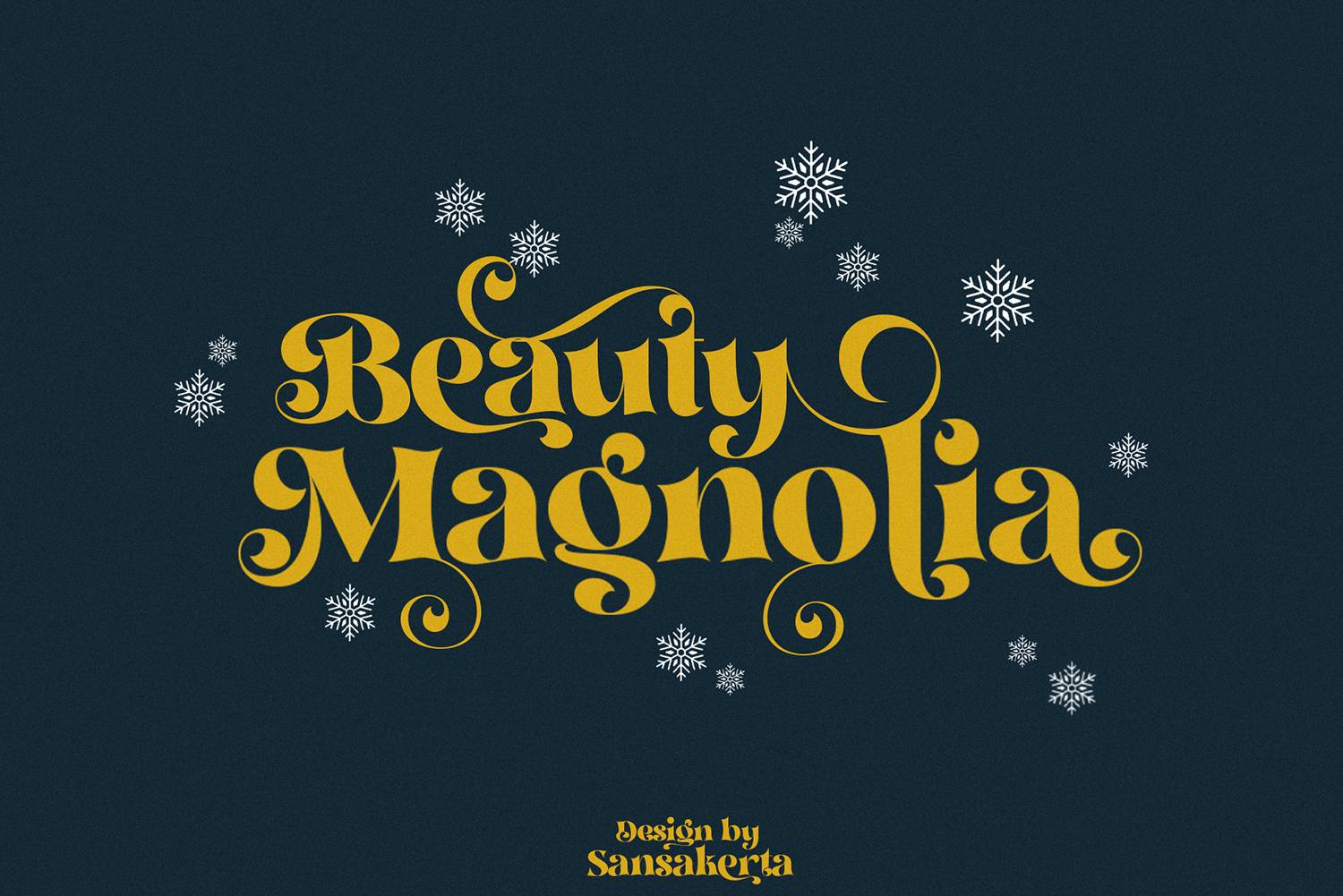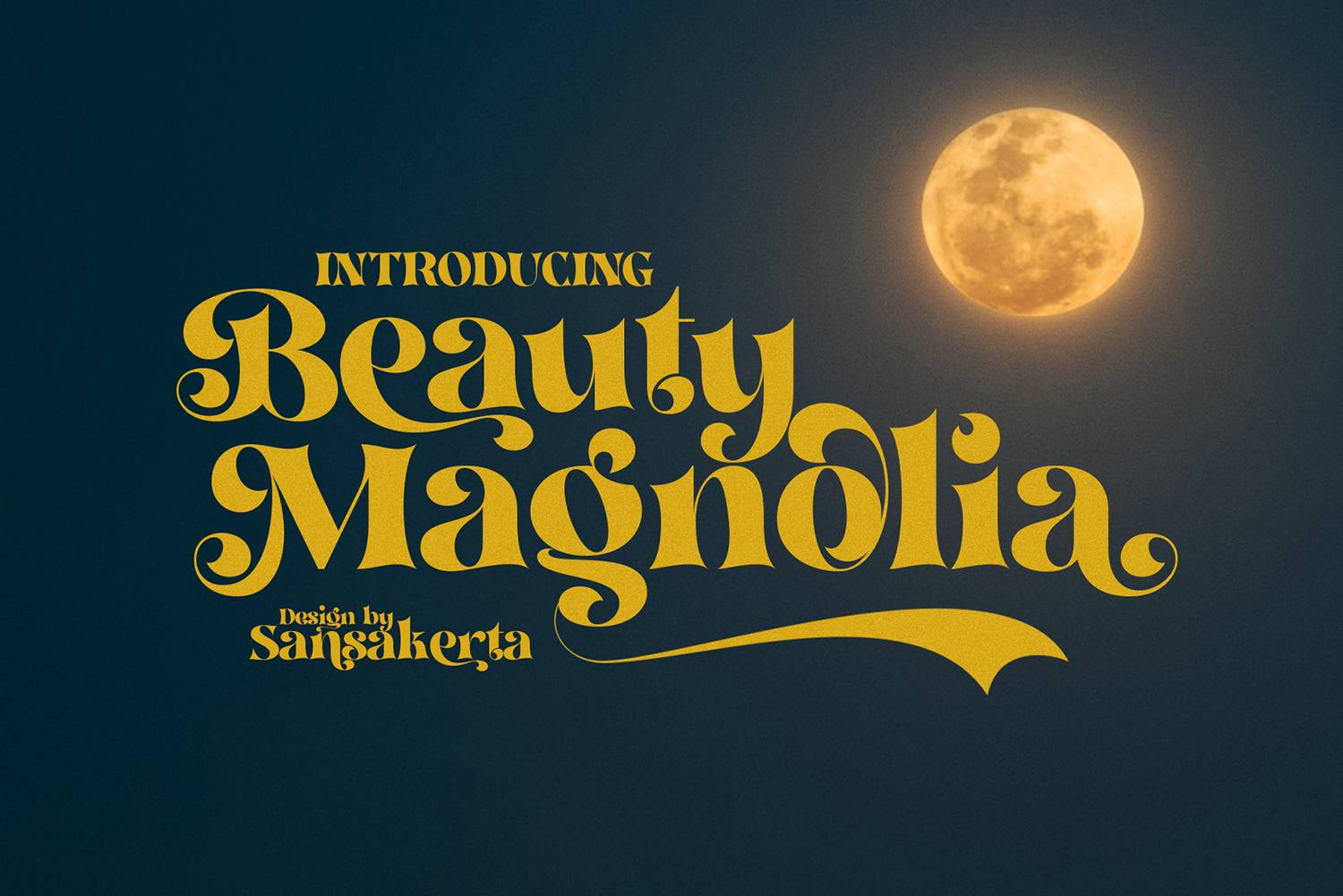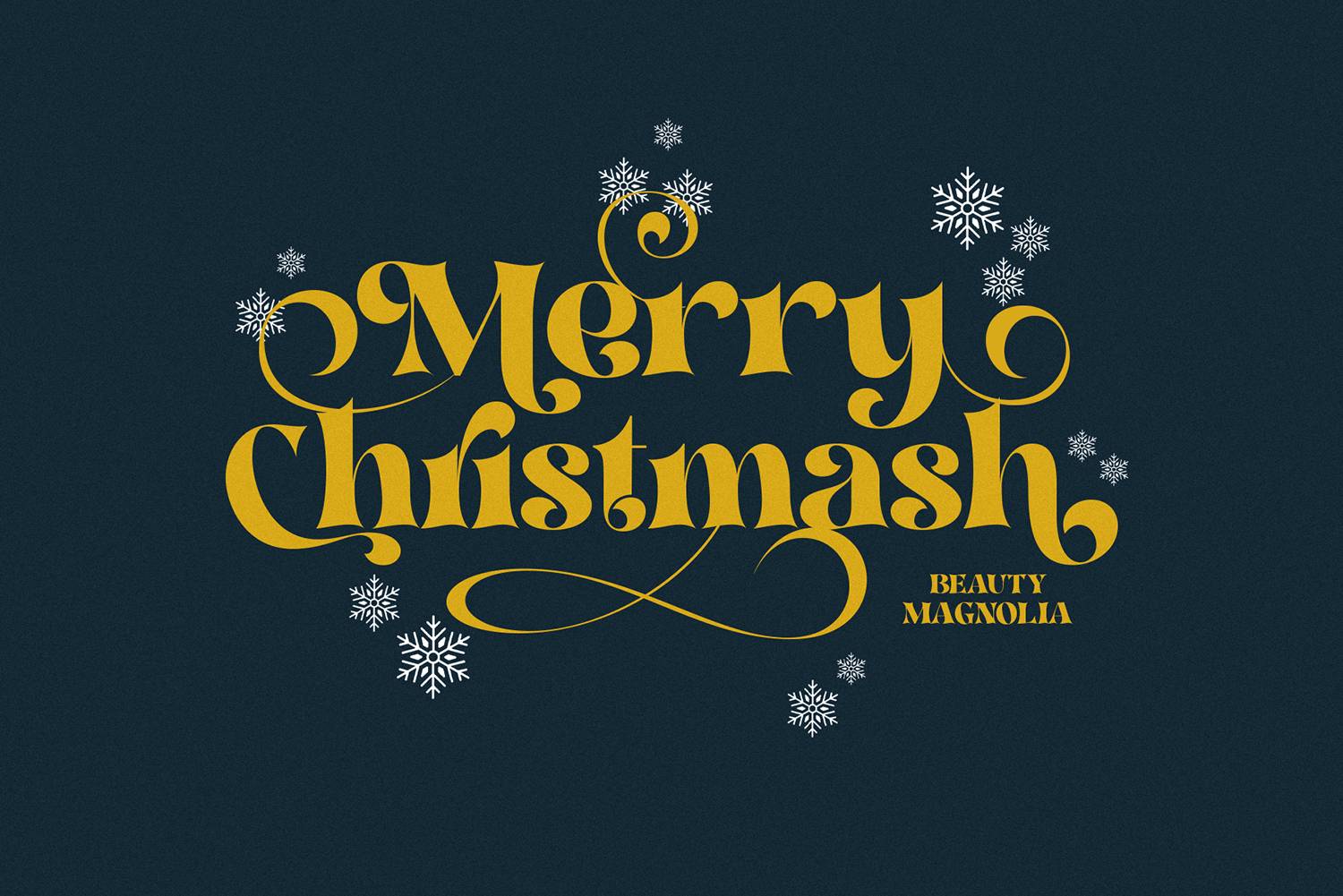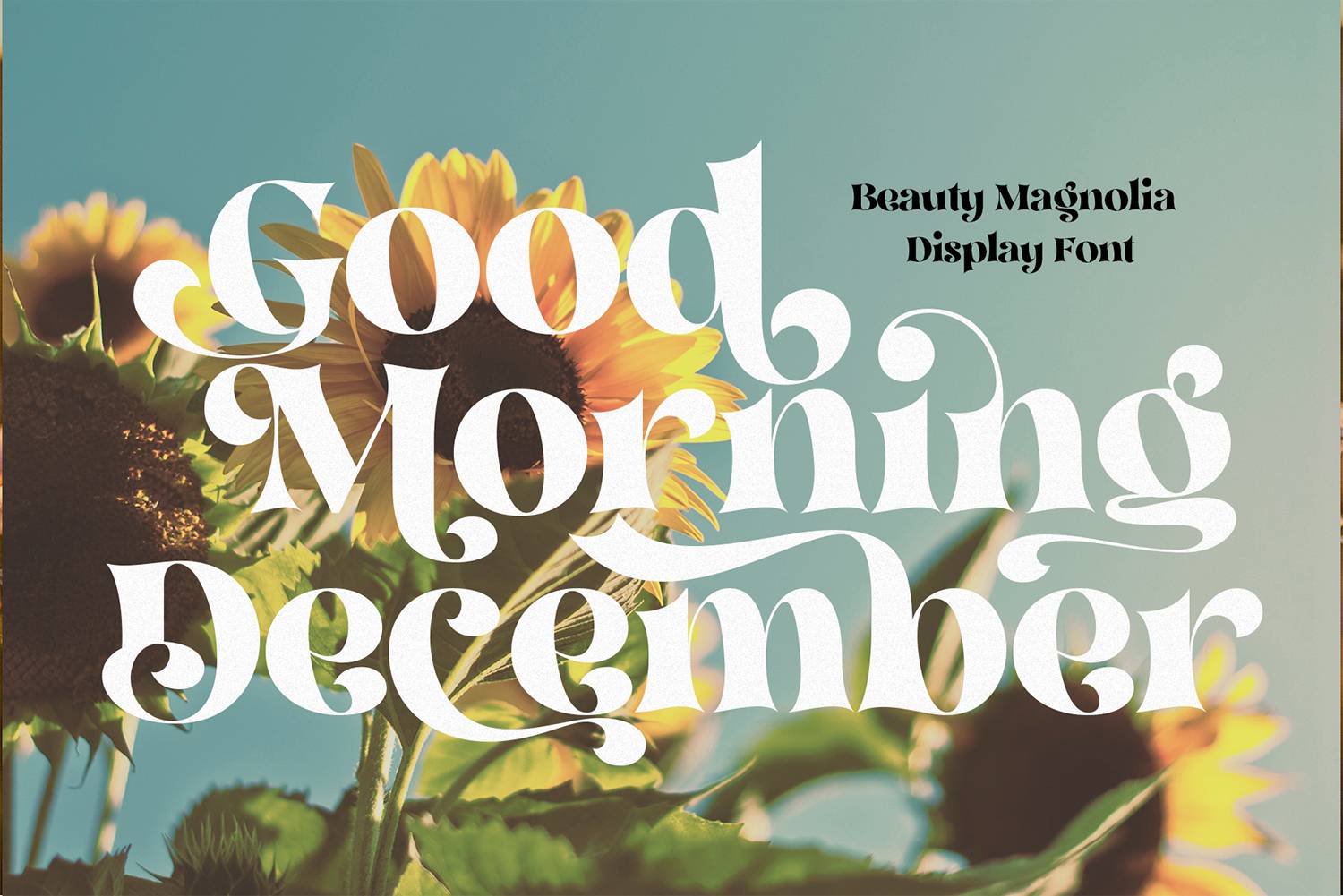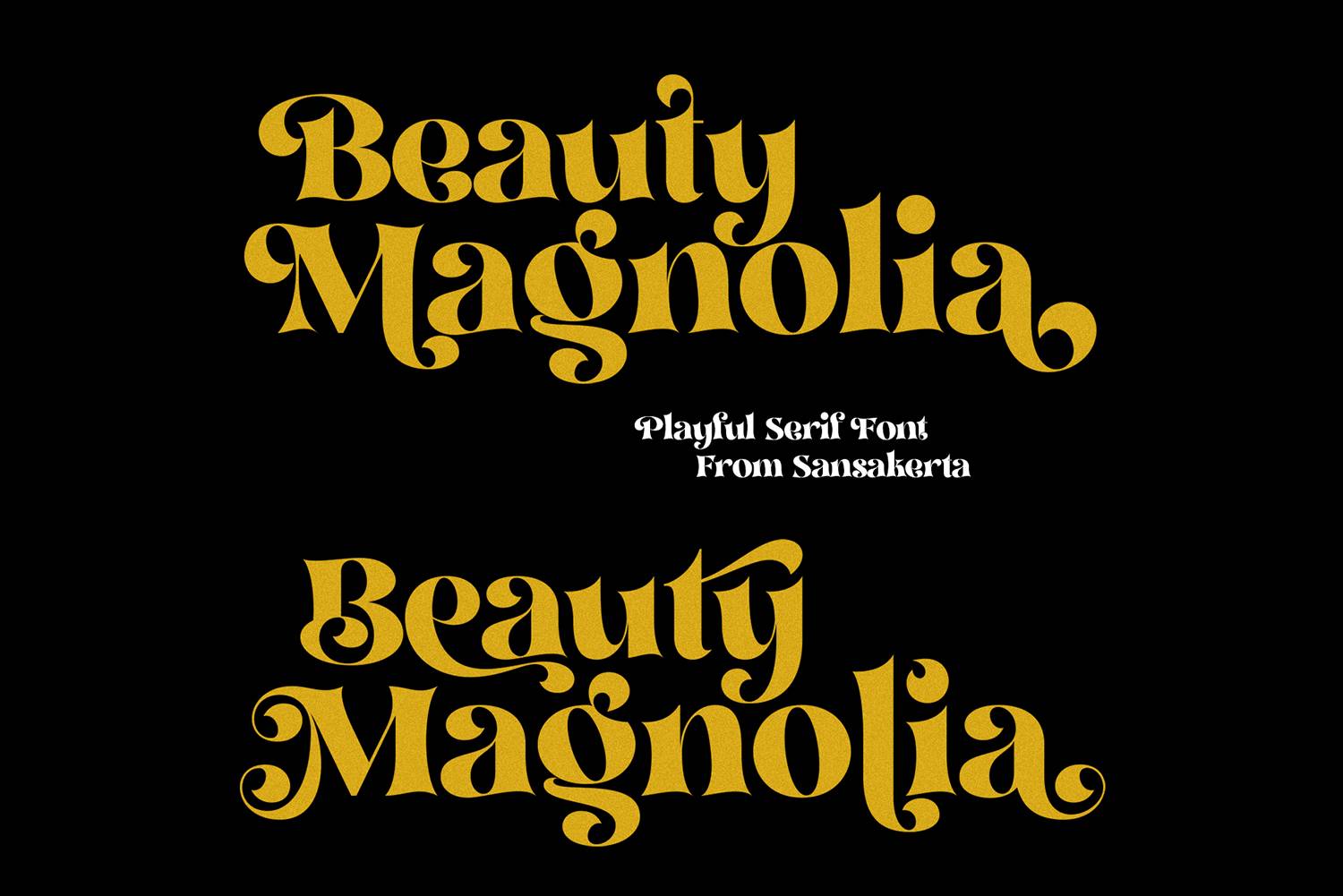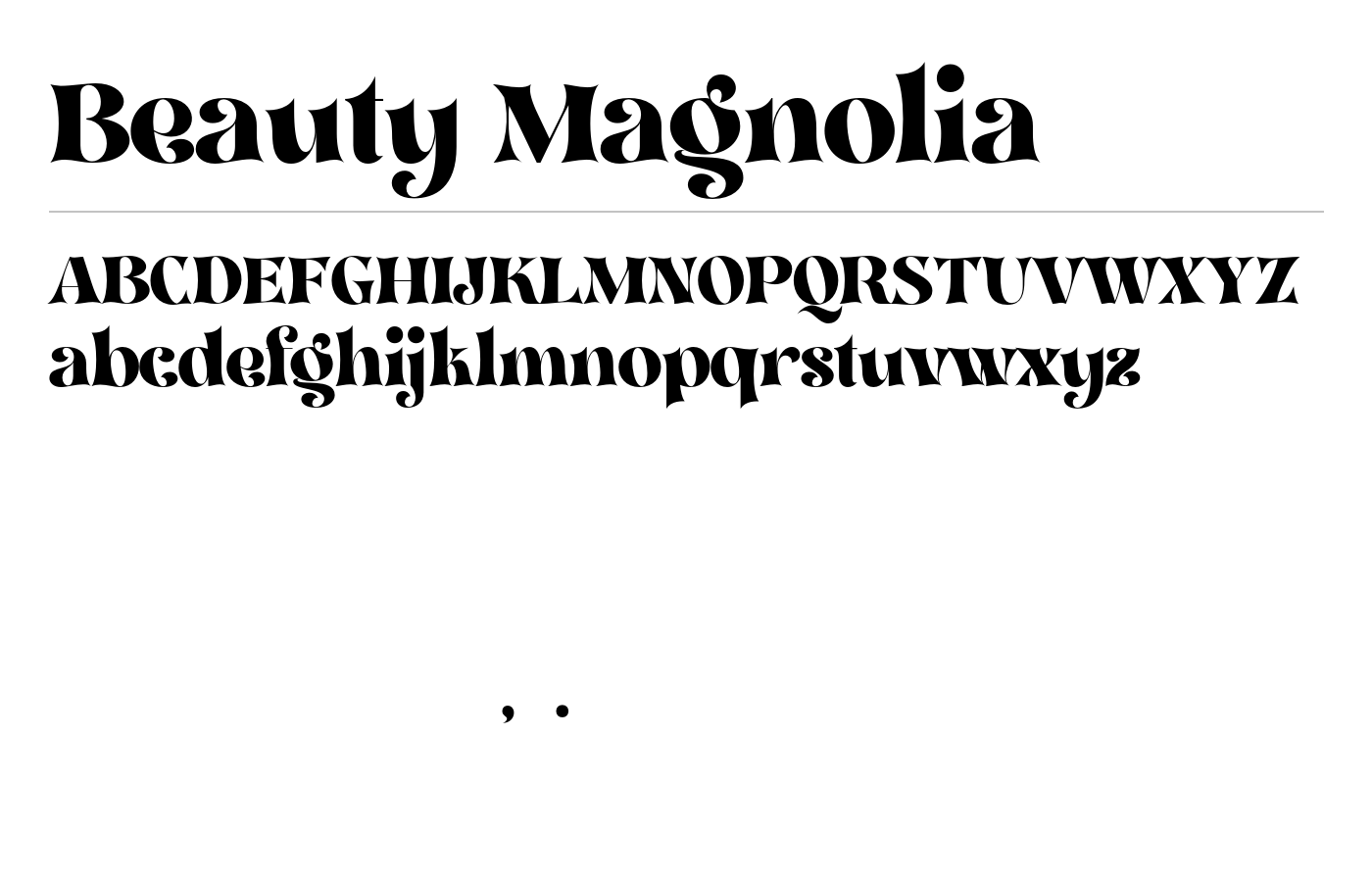
Beauty Magnolia is a bold serif font with a striking blend of modern and vintage flair, characterized by its high contrast between thick and thin strokes and uniquely stylized serifs that add an elegant twist to each letterform. Its dramatic curves and playful terminals convey a strong, sophisticated personality, making it ideal for fashion branding, luxury logos, and eye-catching headlines where a memorable, artistic impression is desired.
Beauty Magnolia Font
About Beauty Magnolia Font